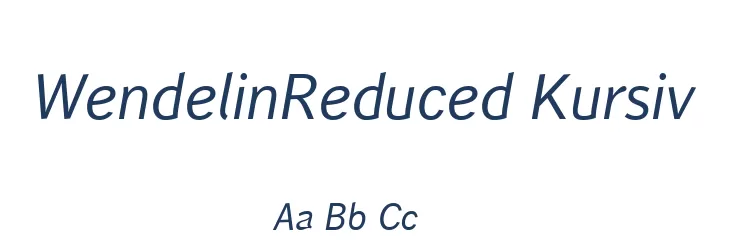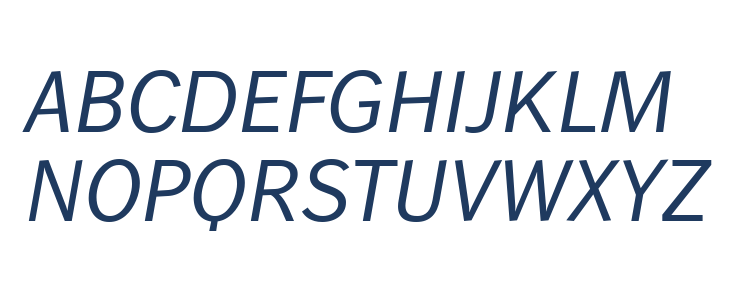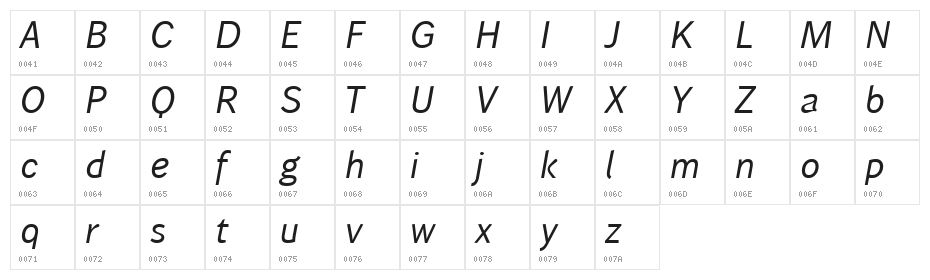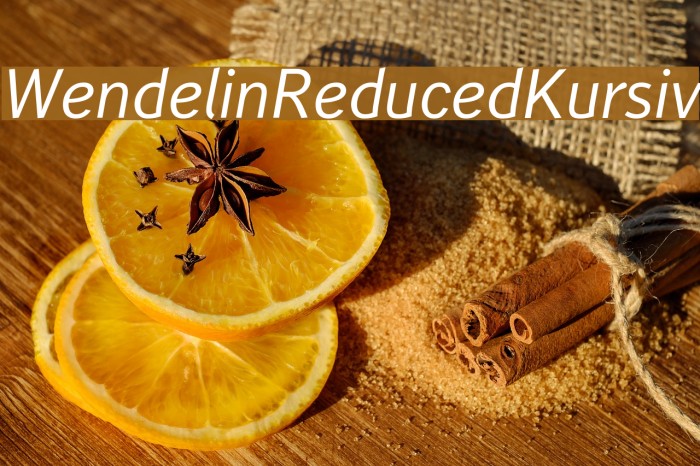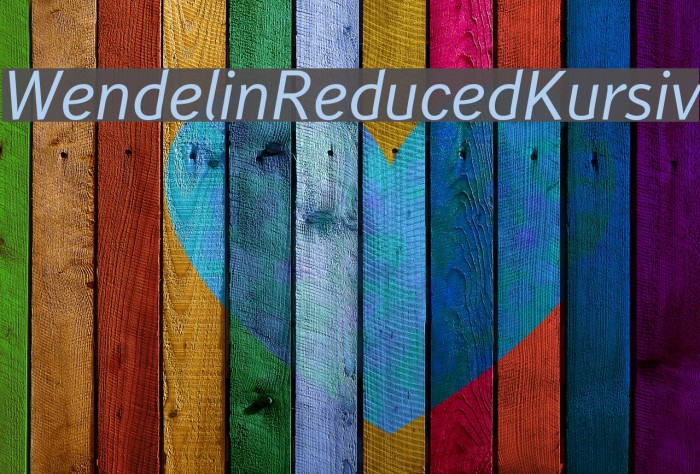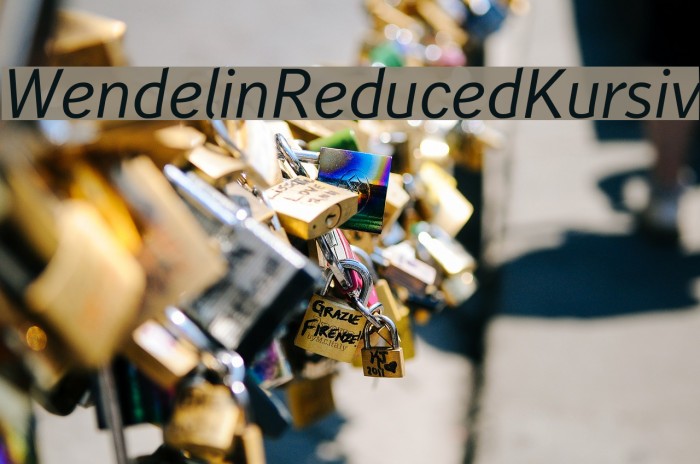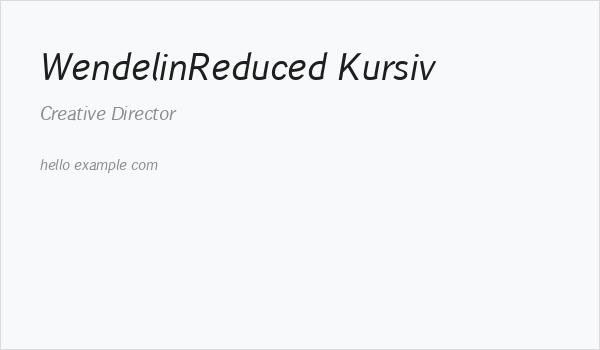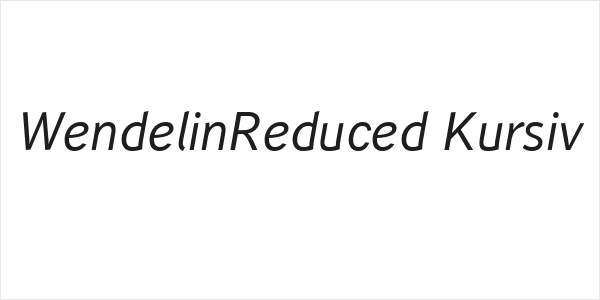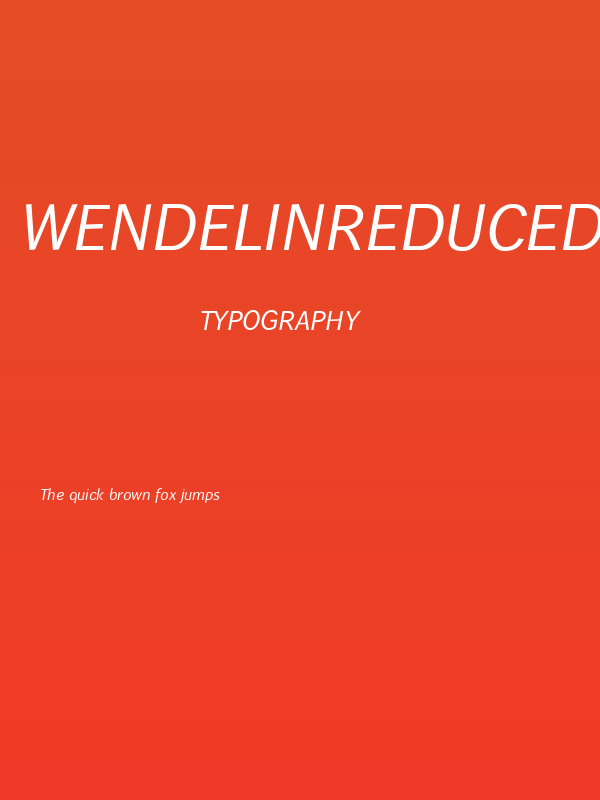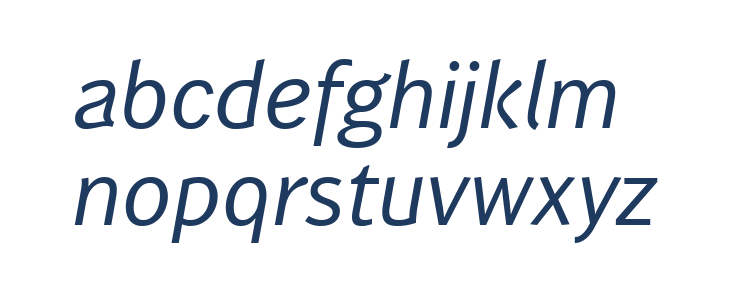
WendelinReduced-Kursiv Font
WendelinReduced-Kursiv Description
This font exhibits a sleek and modern design with a slight italic slant, giving it a dynamic and forward-moving appearance. The characters are clean and well-defined, with a consistent stroke width that provides a uniform look across both uppercase and lowercase letters. The font maintains a balanced proportion, ensuring readability while adding a touch of elegance. The spacing between characters is normal, allowing for clear legibility without feeling cramped. Its overall style is contemporary, making it suitable for a variety of design applications.